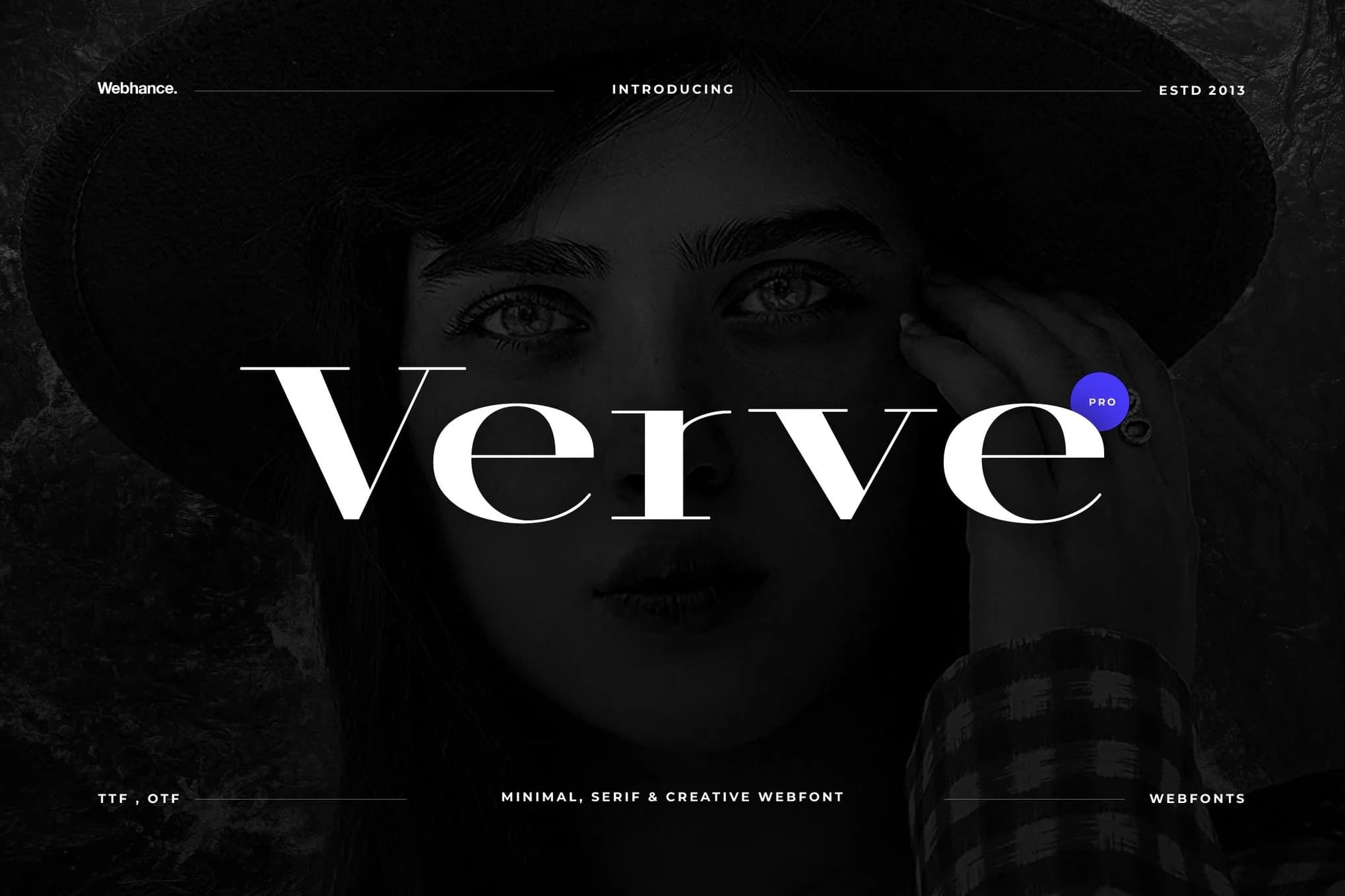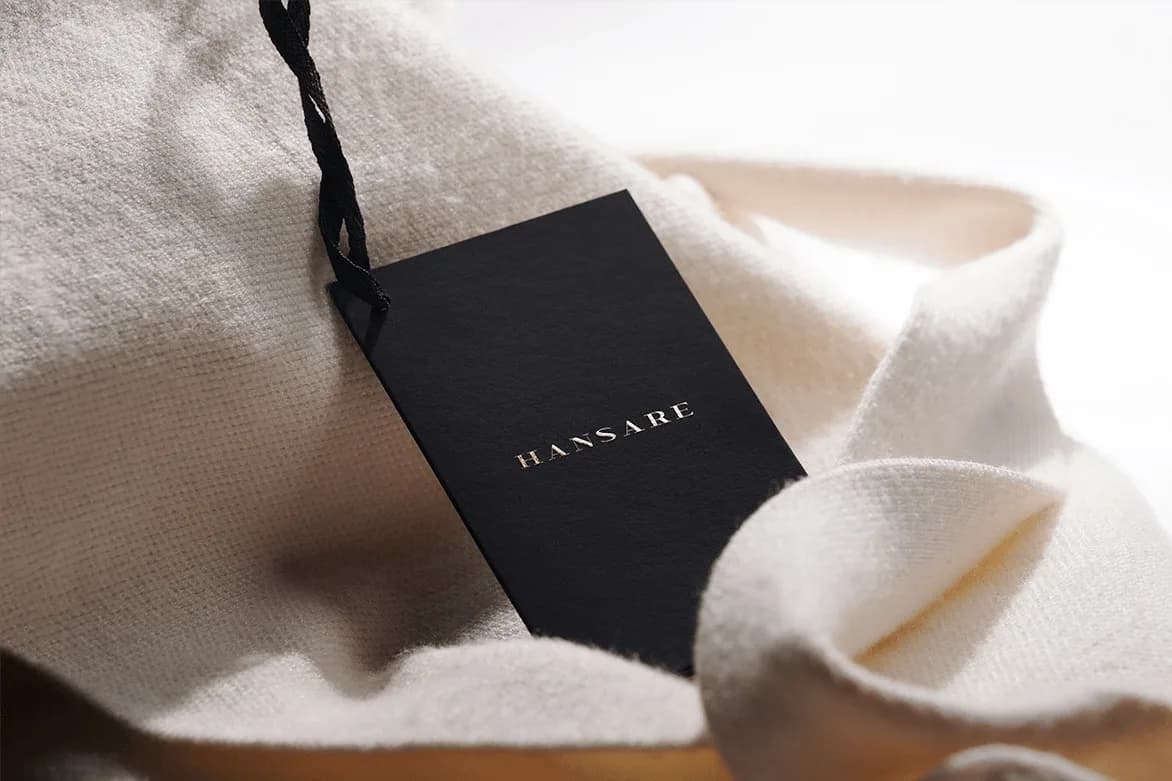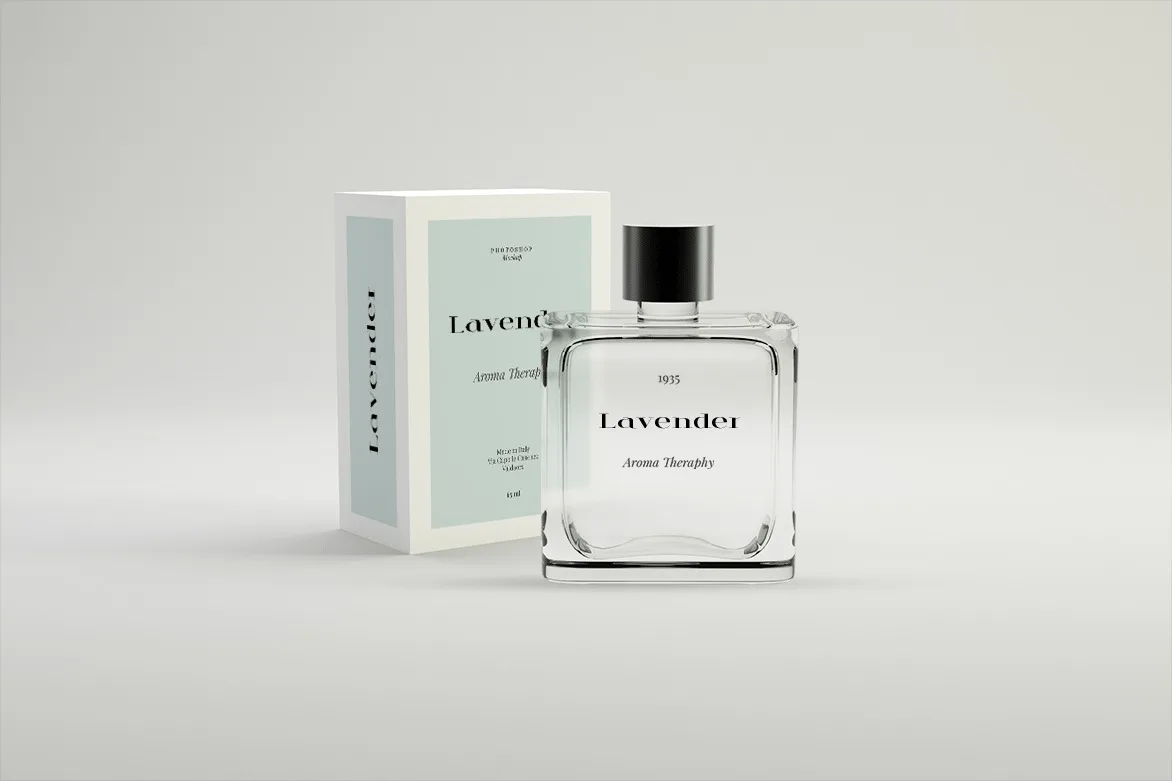
Verve
0Verve is a sophisticated sans-serif font that belongs to the display category, designed specifically to resonate with the ethos of modern luxury. Its geometric shapes and balanced proportions offer a refined elegance that captures attention without overwhelming the viewer. The thoughtful kerning enhances readability, making it ideal for use in high-end branding projects such as fashion logos and marketing materials.
This font thrives in fashion magazines, social media graphics, and promotional posters where a clean yet impactful typography is essential. The modern appeal of Verve makes it suitable for digital interfaces, lending itself beautifully to web and app UI designs that prioritize user experience while maintaining a chic aesthetic. Its versatility ensures that whether you are crafting a stylish landing page for a product launch or developing a cohesive branding strategy, Verve will elevate your design work.
Available in various weights, Verve adapts effortlessly to different contexts, ensuring that each letterform contributes to a cohesive visual narrative. As a font that speaks to luxury and modernity, it is particularly well-suited for fashion design, establishing a unique identity that resonates with discerning audiences. By choosing Verve, you are opting for a typeface that not only enhances your project's appeal but also positions it firmly within the realm of contemporary design excellence.